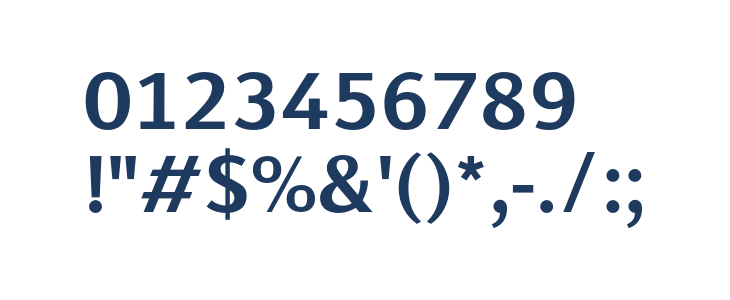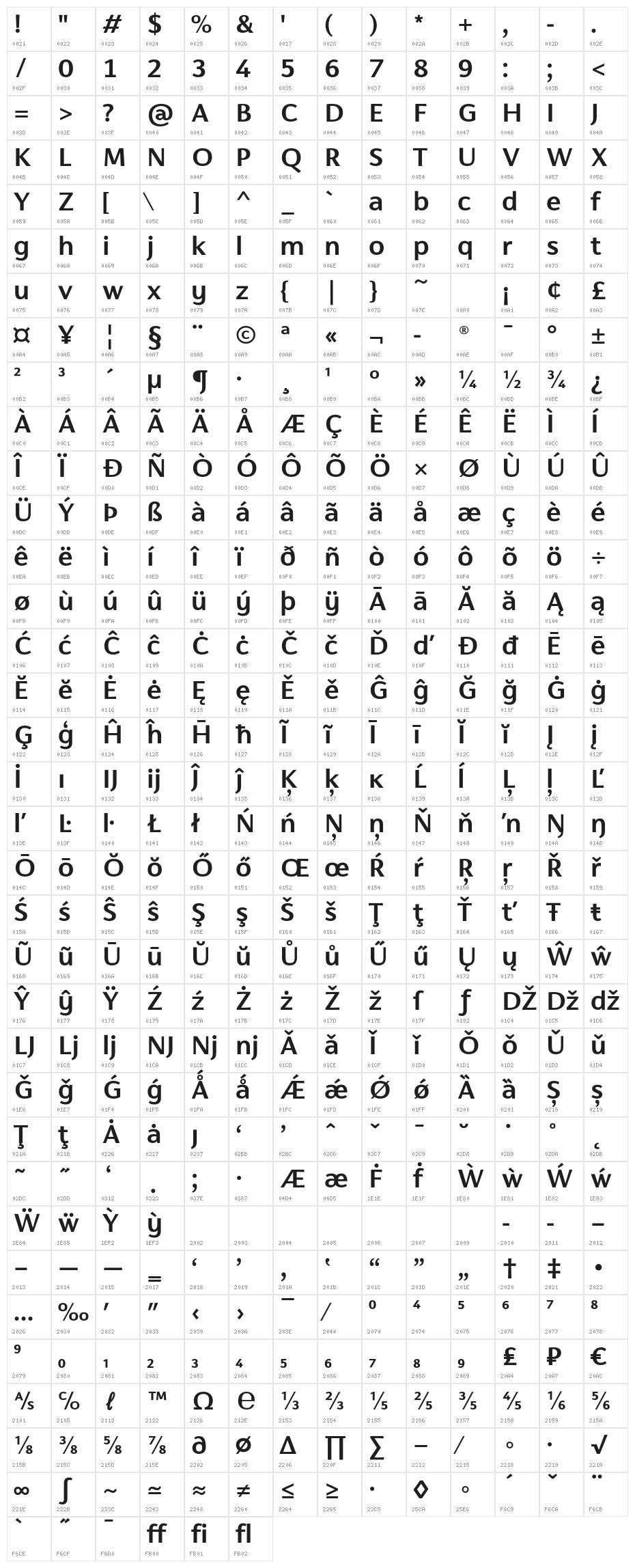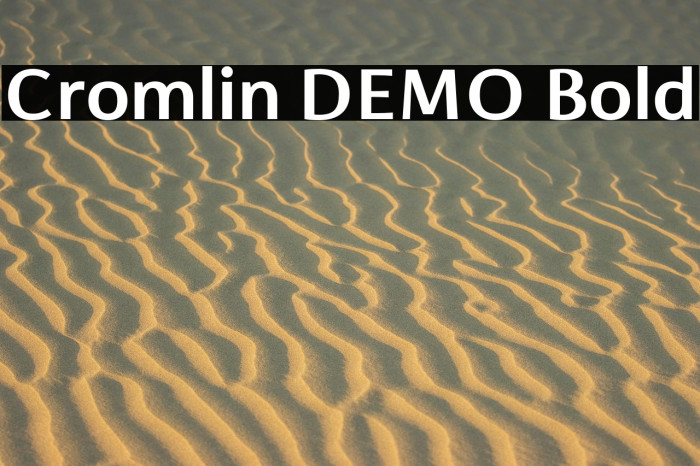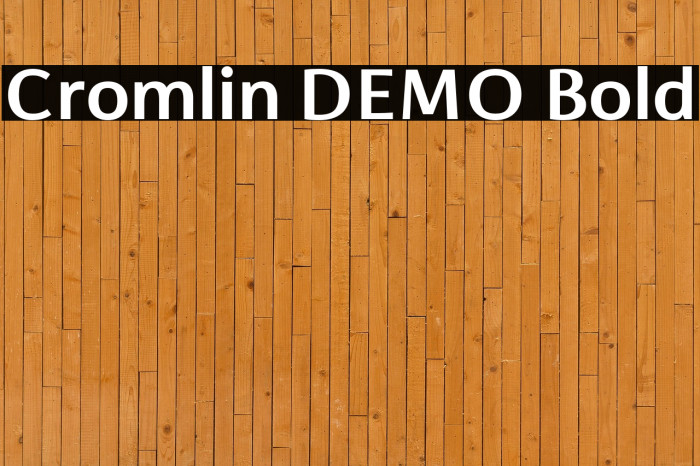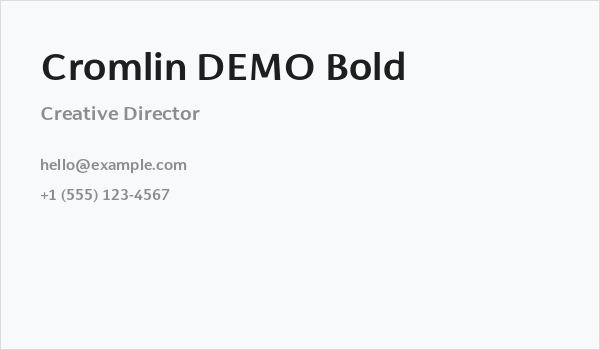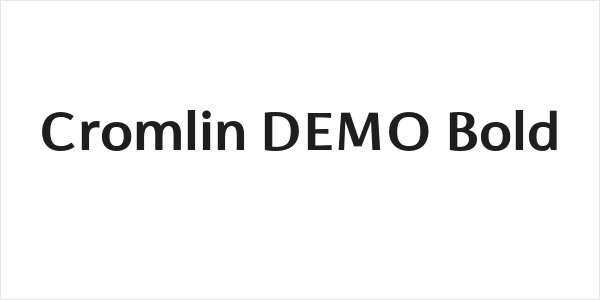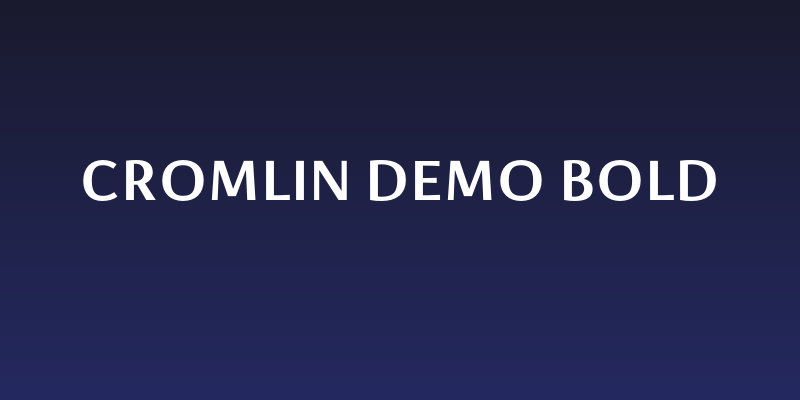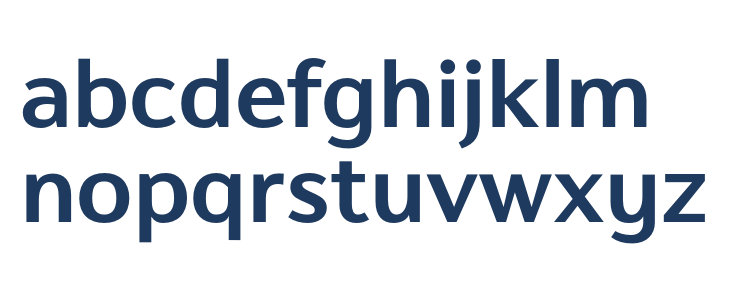
Cromlin DEMO Bold Font
Cromlin DEMO Bold Description
This font exhibits a clean and modern sans-serif style, characterized by its bold weight and uniform stroke width. The characters are well-proportioned with a consistent height, making it highly legible. The uppercase letters are slightly taller than the lowercase, providing a clear distinction between the two. The numerals are straightforward and align well with the overall design, ensuring readability. Special characters are crafted with precision, maintaining the font's cohesive appearance. The overall design is versatile, suitable for various applications where clarity and impact are essential.